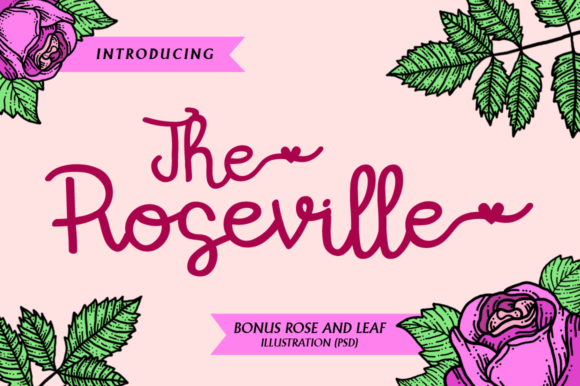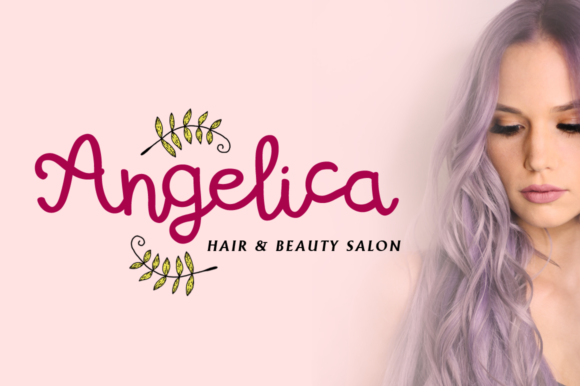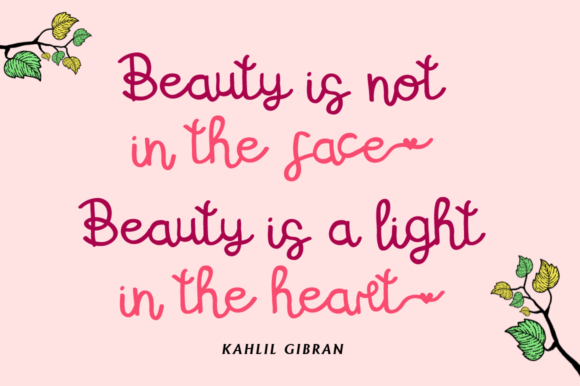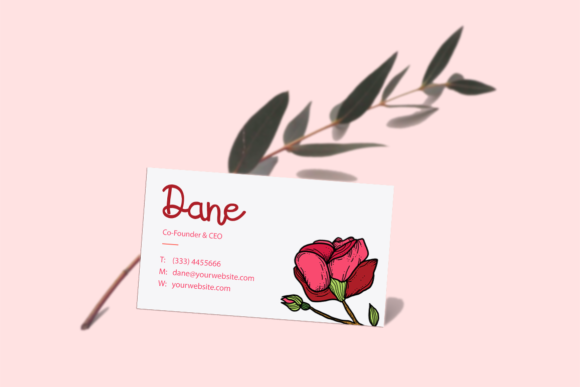
The Roseville Font
About The Roseville Font
The Roseville is a handwritten script font with playful character. Inspired by the beautiful blossom of roses and suitable for any design project.